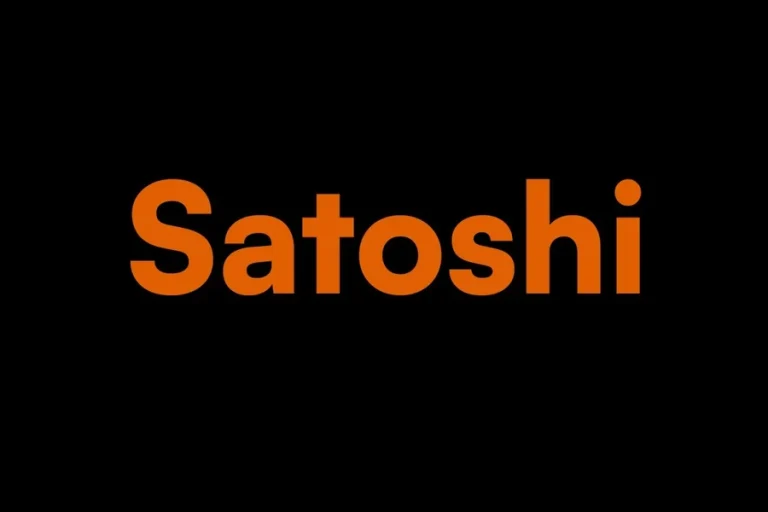
Satoshi Font Guide for Modern Design Projects
Satoshi Font
Satoshi font has quickly become a favorite among designers who want a clean, modern, and highly readable typeface. It provides a personality and a neutrality balance that is effective in most of the design styles, whether it is websites, branding systems or both. Unless you have been in a coma recently, you will have already encountered this typeface in use on a flashy startup site on Behance or elsewhere.
We will look closer at what makes this geometric sans serif special, where it can be used most efficiently and how in this guide you can use it in your own project without complicating your layouts in any way.
The Background and Design Philosophy
Satoshi font was created by Indian type designer Dharmesh Mistry and released through the Indian Type Foundry. The purpose was uncomplicated but high. Design a modern day original, non-boring but not plain, organised but not inflexible, sans serif.
The typeface is based on the geometrical foundation which implies that most of the shapes are constructed on the principle of circle and clean lines. Nonetheless, it does not feel cold or mechanical. Humanist touches make the letterforms soft. This equilibrium is among the reasons why it is equally effective in tech startups, creative portfolios and editorial spreads.
In contrast to certain fonts of geometric nature, Satoshi is warm and cozy because of open apertures and pleasant spacing. Such a design choice enhances display on screens which is mandatory in the contemporary digital surroundings.
Key Characteristics That Make It Stand Out
One of the strongest features of Satoshi font is its versatility. It usually exists in various weights, light through bold, which gives the designers the opportunity to construct clear hierarchies without changing the typeface.
The typography is uniform and neat. The small characters are friendly and approachable, whereas the big letters seem to be rather professional. This suits well with any brand that is keen on looking contemporary and reliable simultaneously.
The distance between is well-calculated. This makes both the big headings and the smaller body text to be readable. The curving lines make it look modern and the straight edges make it crispy and bold.
The other strength is its screen performance. As a greater number of products become digital, designers require fonts that can be read on devices. Satoshi font performs well in UI design because of its clarity and even stroke width.
Where Satoshi Font Works Best
Satoshi font fits naturally into a variety of design contexts. It is particularly widely used in the tech branding, SaaS sites, and modern portfolios. Its non-glitzy innovation is conveyed through its clean appearance.
Minimal layouts go well with it in web designing. The clarity of the grids is achieved with white space and organized grids. Due to its geometrical foundations, it fits the interface elements and digital dashboards quite well.
When applied in editorial design, it may be applied in headlines and subheadings. The typeface is of sufficient character to be on its own rather than competing with pictorials. It is readable and has a modern tone that advantages magazines and online publications.
It is also effective in logos designing. The crisp lines and clean edges allow it to be customized in regards to custom lettermark adjustments. Designers usually make some modifications to some of the characters in order to form distinct brand identity with the same framework.
How It Compares to Other Popular Sans Serifs
In the case designers seek a contemporary sans serif, they usually make comparisons between Satoshi and other popular typefaces. To illustrate, Helvetica has been regarded as the gold standard of a neutral design. Its application is common in the branding and signage of corporations. But at times, Helvetica is too conventional or too common on the screen.
The other similar comparison is Futura. Futura is very geometric, and striking. However, its inflexible circular shapes may decrease readability with small fonts. Satoshi retains the geometric base and makes it more comfortable to use.
Inter is also common in the UI design. Inter is screen-optimized and has a good legibility level. Although both fonts are effective on the computer, Satoshi can be a bit more stylish and unique, particularly when it comes to branding.
These comparisons highlight why many designers appreciate Satoshi font. It provides contemporary geometry without being cold or rigid.
Practical Tips for Using It Effectively
If you plan to use Satoshi font in your next project, start by choosing the right weights for hierarchy. The large weight of headlines and the regular or medium weight of body texts form a good structure without overload.
Pay attention to spacing. The default font balance is good but it can be improved by changing the line height and fine-tuning the spacing between the letters. Small spacing between lines is usually beneficial to the readability of web design.
Can Satoshi font be used for logos?
Yes, its geometric structure and versatile weights make it suitable for logo design and brand identities.
How does Satoshi font compare to Helvetica?
Satoshi font feels more contemporary and slightly warmer than Helvetica while maintaining a clean and professional appearance.